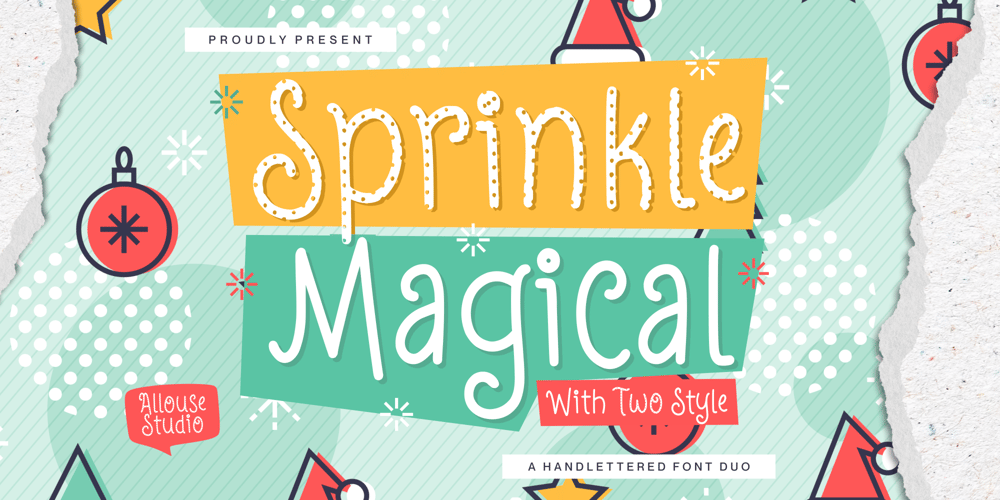
Sprinkle Magical Font Family was designed by Fachrizal Yusuf and published by Allouse Studio. Sprinkle Magical contains 2 styles and family package options. Proudly Presenting, Sprinkle Magical a Handlettered Font Duo.Sprinkle Magical is perfect for any titles, logo, product packaging, branding project, megazine, social media, wedding, or just used to express words above the background.Sprinkle Magical also come with Multi-Lingual Support.Enjoy the font, feel free to comment or feedback, send me PM or email. Thank You!